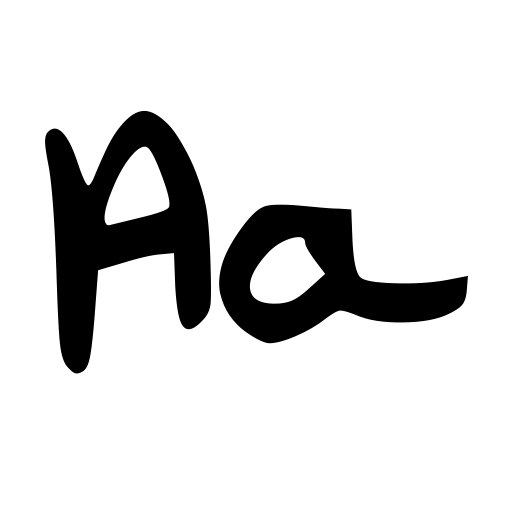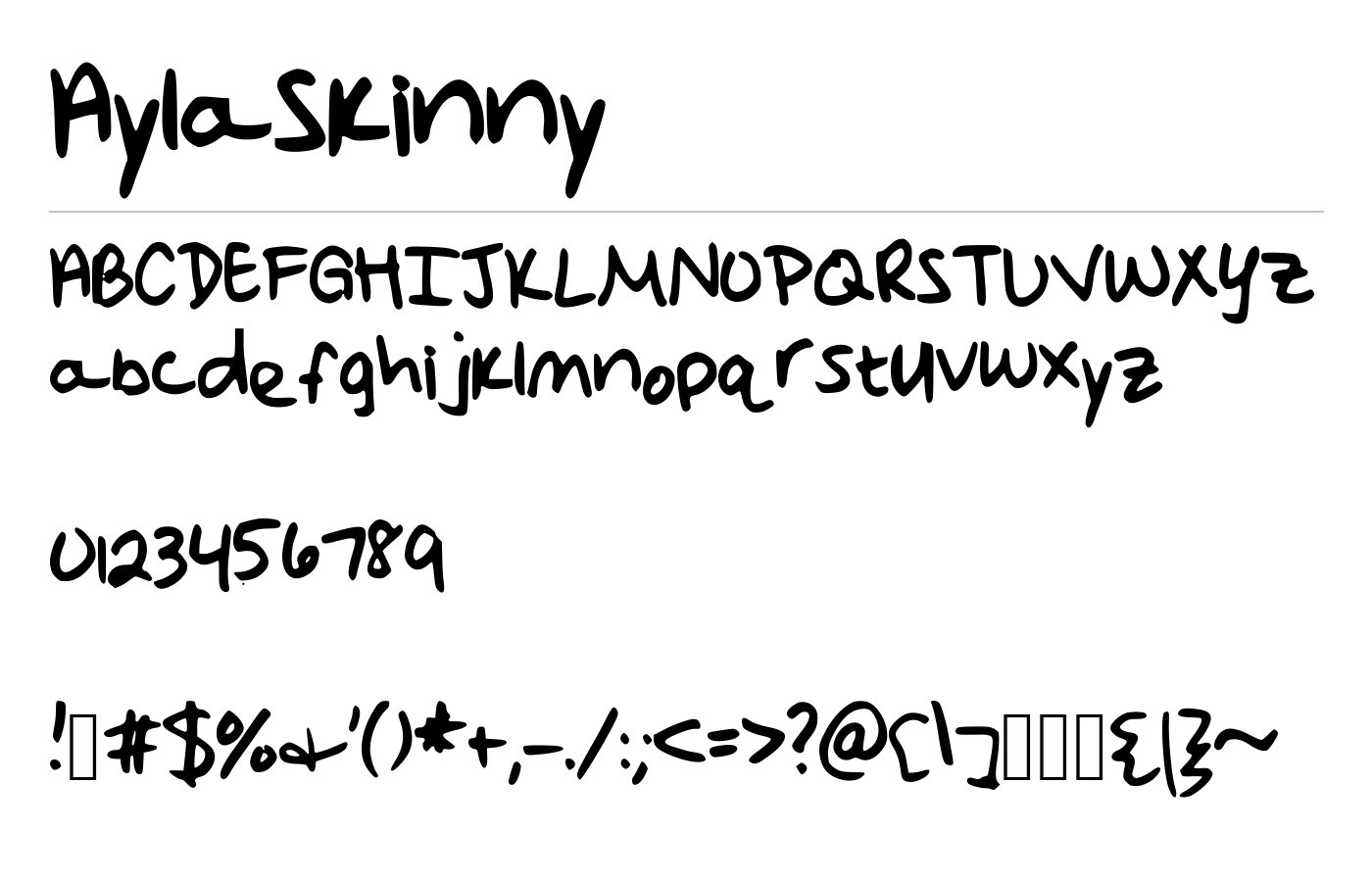
AylaSkinny is a playful, casual handwritten font with a tall, narrow structure and uneven stroke width, giving it a lively, organic feel. Its friendly and informal style works well for creative projects, children’s materials, and personal branding where a warm, approachable tone is desired. This font stands out in headlines, logos, and packaging that aim to convey creativity and personality with a hand-drawn touch.
AylaSkinny Font
About AylaSkinny Font